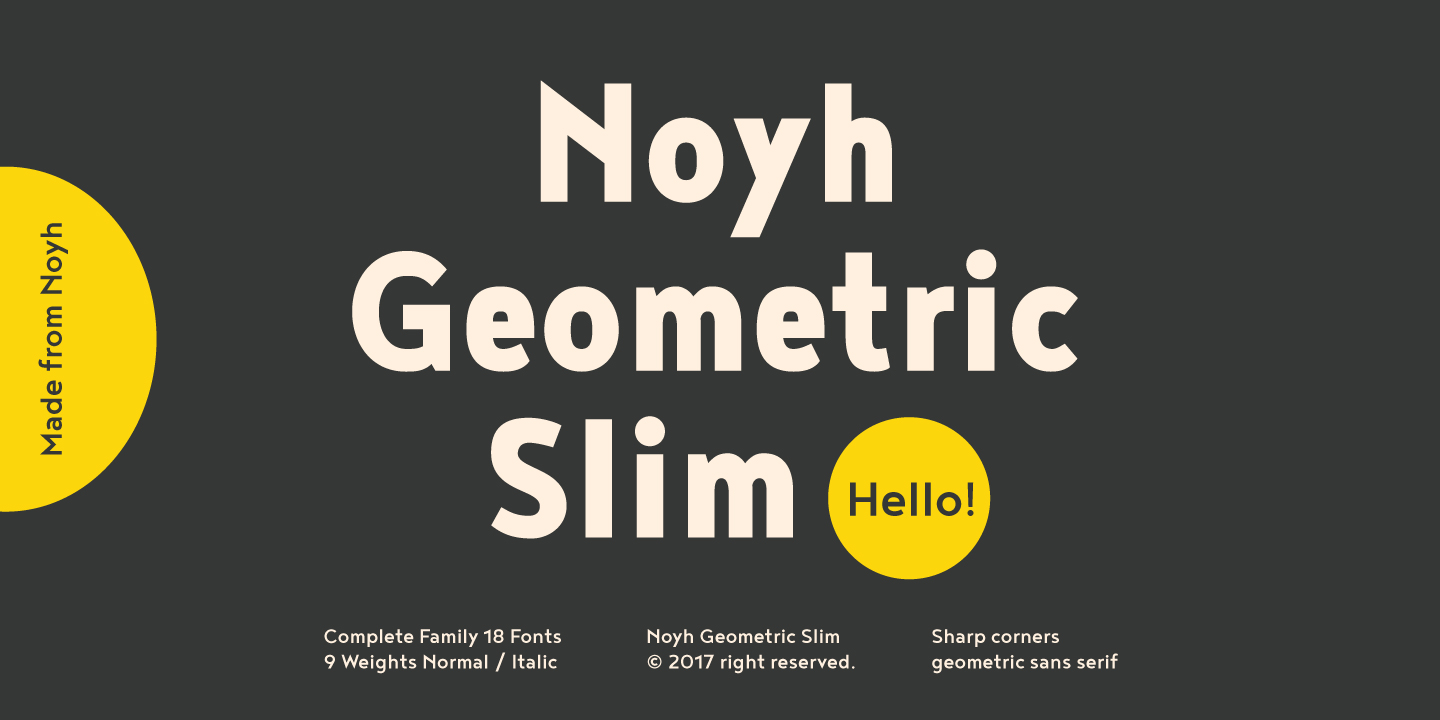
Noyh Geometric Slim Font is perfect for modern tech startups, minimalist architecture firms, sleek fashion brands, contemporary art galleries, progressive design studios, cutting-edge app interfaces, refined corporate identities, and sophisticated designs that require ultra-modern geometric precision and streamlined elegance.
This font is exciting because it represents the pinnacle of contemporary geometric design through its razor-sharp letterforms that achieve perfect balance between mathematical precision and visual refinement. The streamlined character design embodies the future of minimalist typography, making it ideal for forward-thinking brands seeking to establish themselves as leaders in modern design innovation.
Noyh Geometric Slim Font belongs to the contemporary geometric font family, featuring slim styling and precision elements that enhance its effectiveness for tech-focused and design-conscious applications.
Whether you're creating innovative tech branding or minimalist architectural graphics, Noyh Geometric Slim Font Free Download delivers exceptional modernity and geometric sophistication. This typeface represents the evolution of systematic design, combining mathematical perfection with contemporary aesthetic sensibilities for cutting-edge applications. The font's precise presence works magnificently in digital interfaces, corporate communications, and modern signage systems, providing superior readability while maintaining its geometric character that transforms any design with contemporary precision and establishes visual excellence across all media platforms and modern communications.